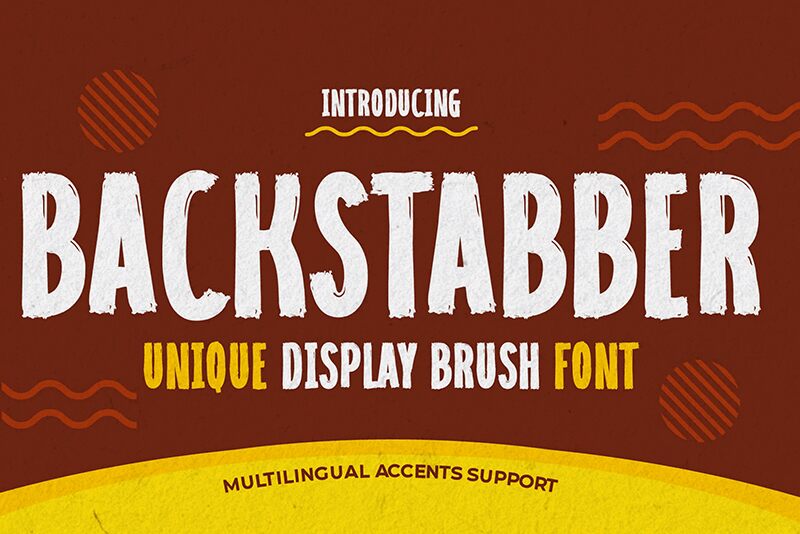
Backstabber
Emanate a sense of betrayal interwoven with elegance using Backstabber, crafted by the inventive Gassstype. This brush font stands out with its bold, extra-condensed style that captures the essence of drama and spontaneity. Its modern flair is rooted in a natural hand-drawn feel, bringing an organic touch to every curve and line.
Backstabber is not just a font; it's an artistic statement. Ideal for a variety of creative endeavors, it effortlessly elevates projects ranging from invitations and logos to book covers and crafts. The font's charming authenticity makes text appear imbued with emotion, ensuring that your design resonates with viewers on a personal level.
Make your artistic expression truly captivating. Backstabber beckons designers to infuse their work with personality—a brush font tailored for those who dare to make each detail count.